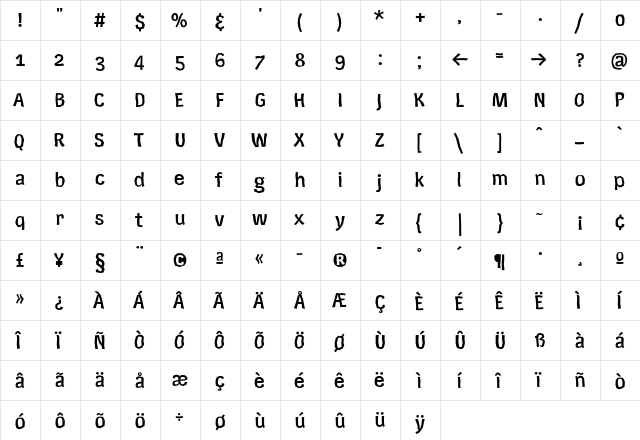
Rekord Book
Design Context for Rekord Typeface
Rekord takes a measured approach to typography — its balanced proportions and neutral character make it a reliable workhorse for both digital and print work.
Pro Tip: Pair Rekord with a font of contrasting weight or personality to build a more expressive typographic hierarchy.